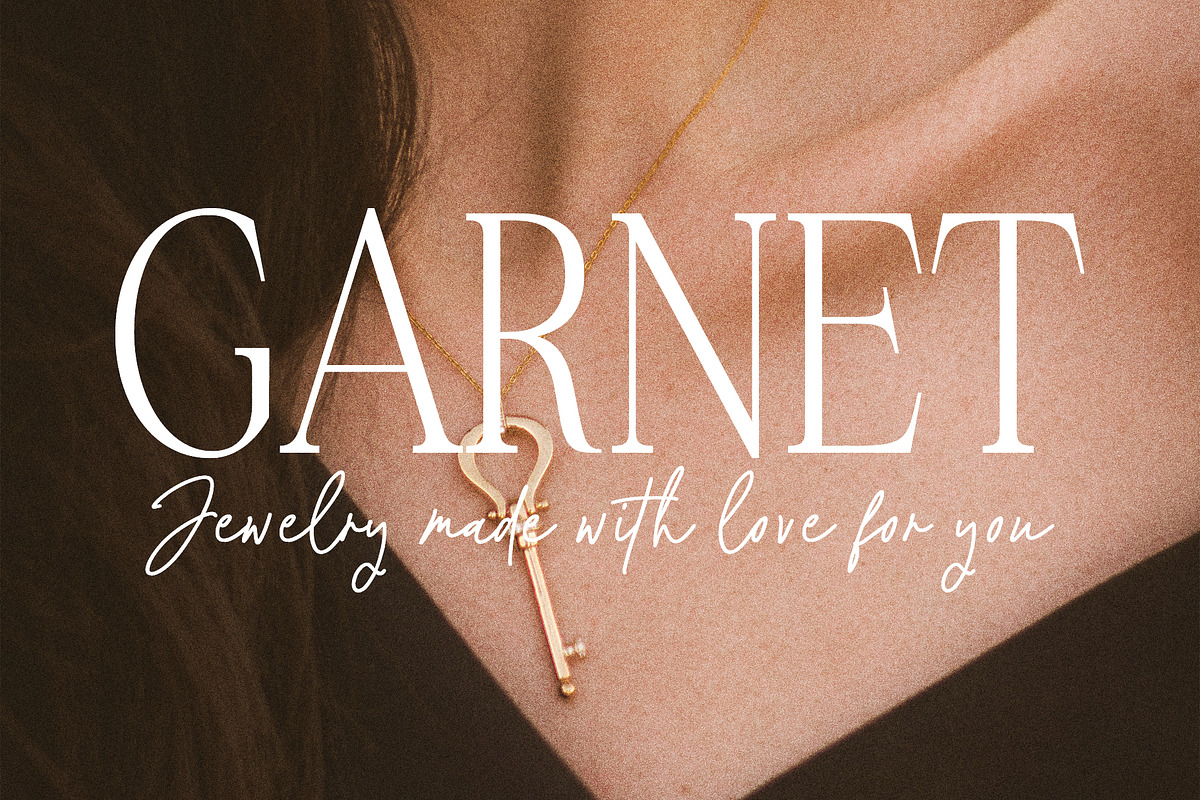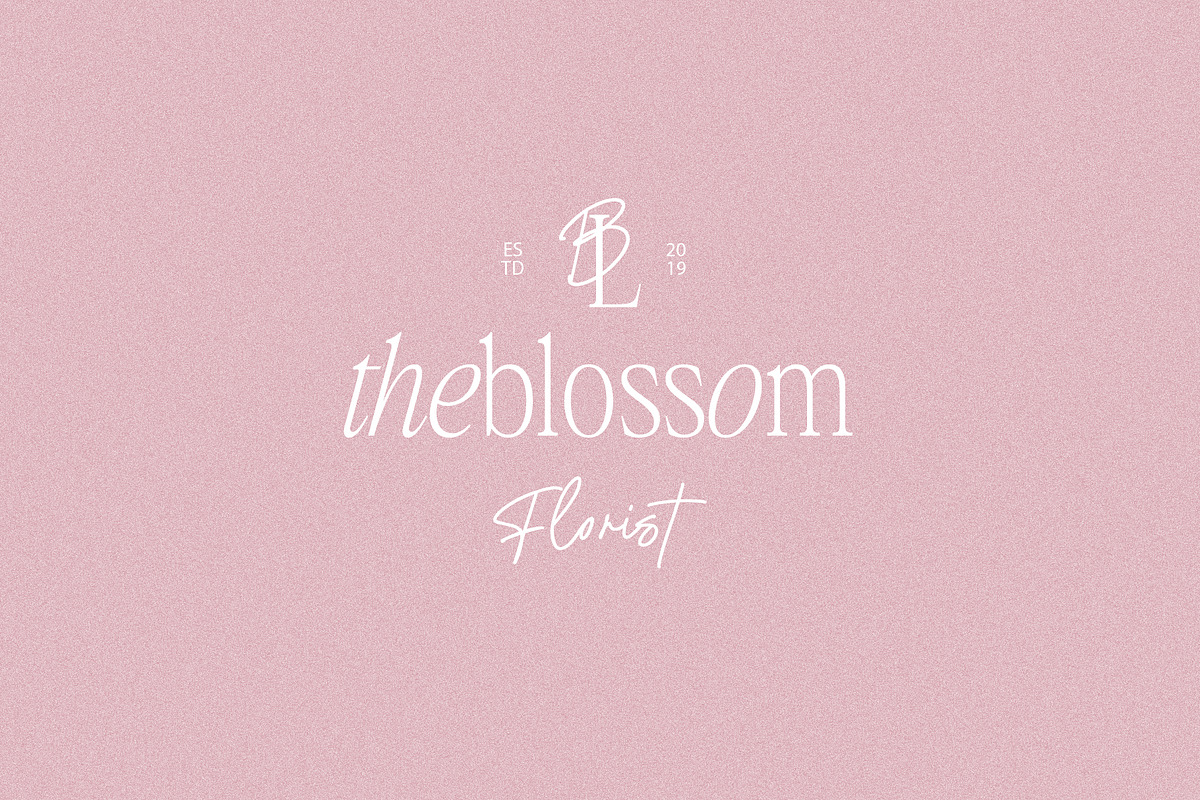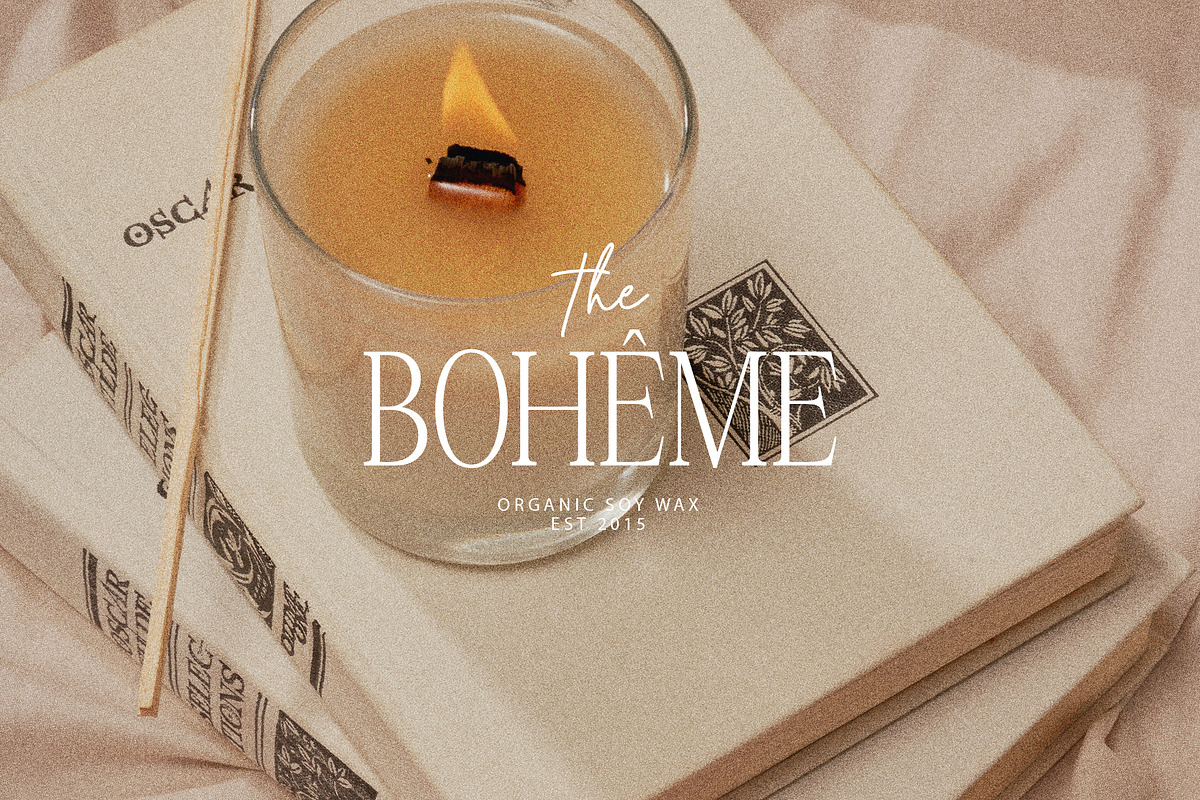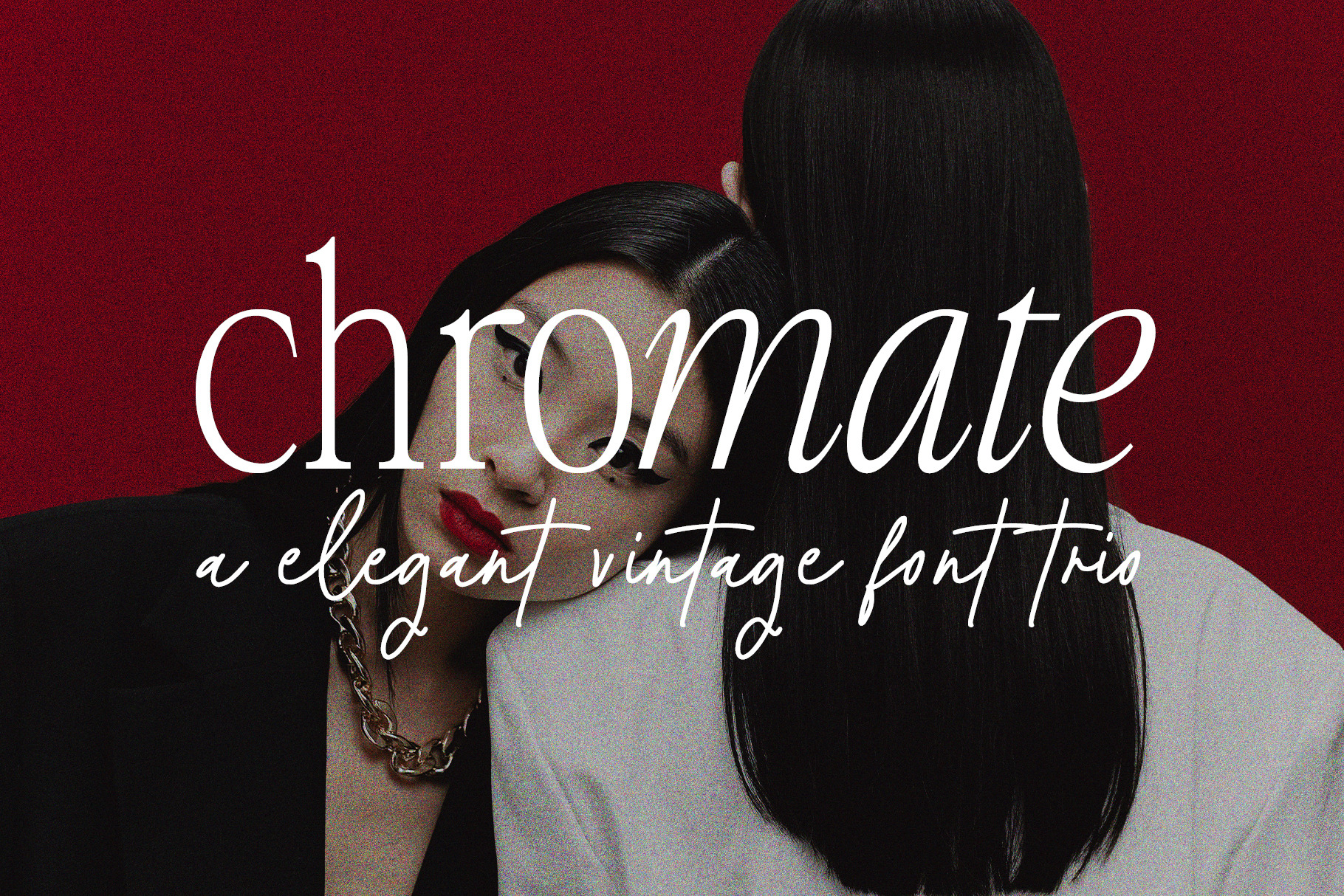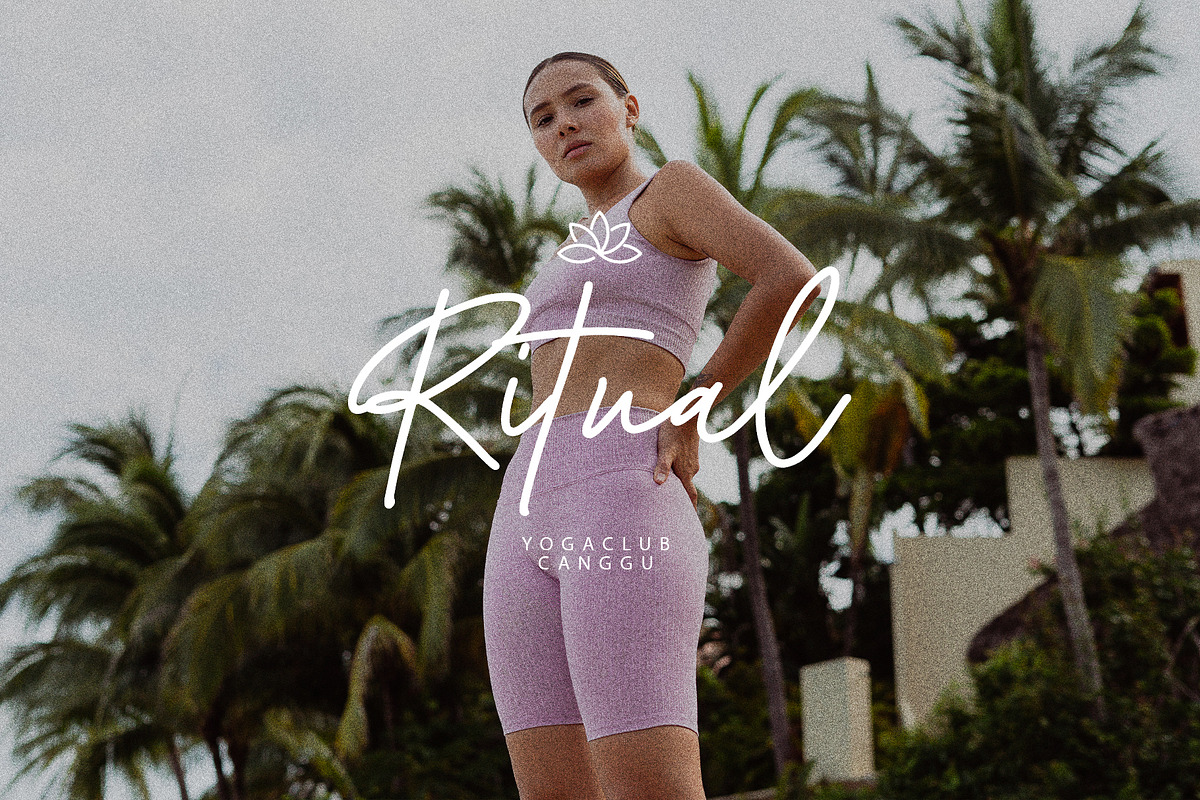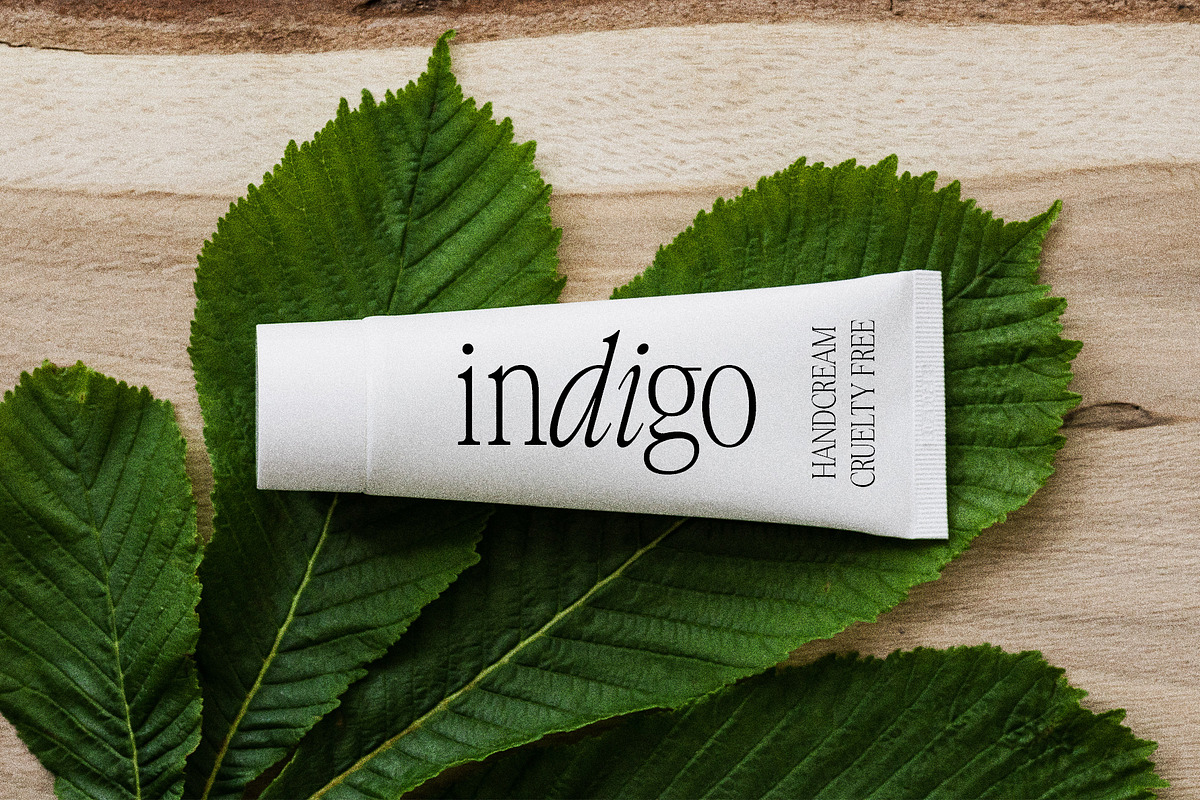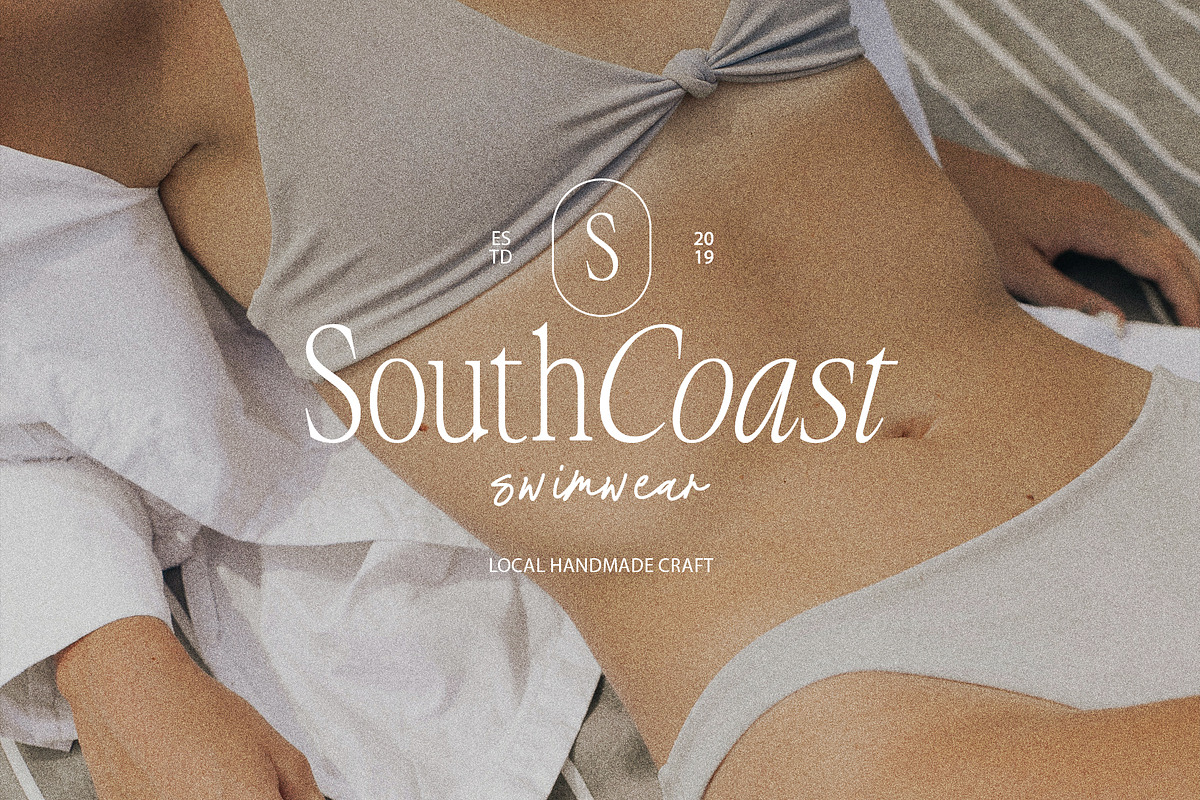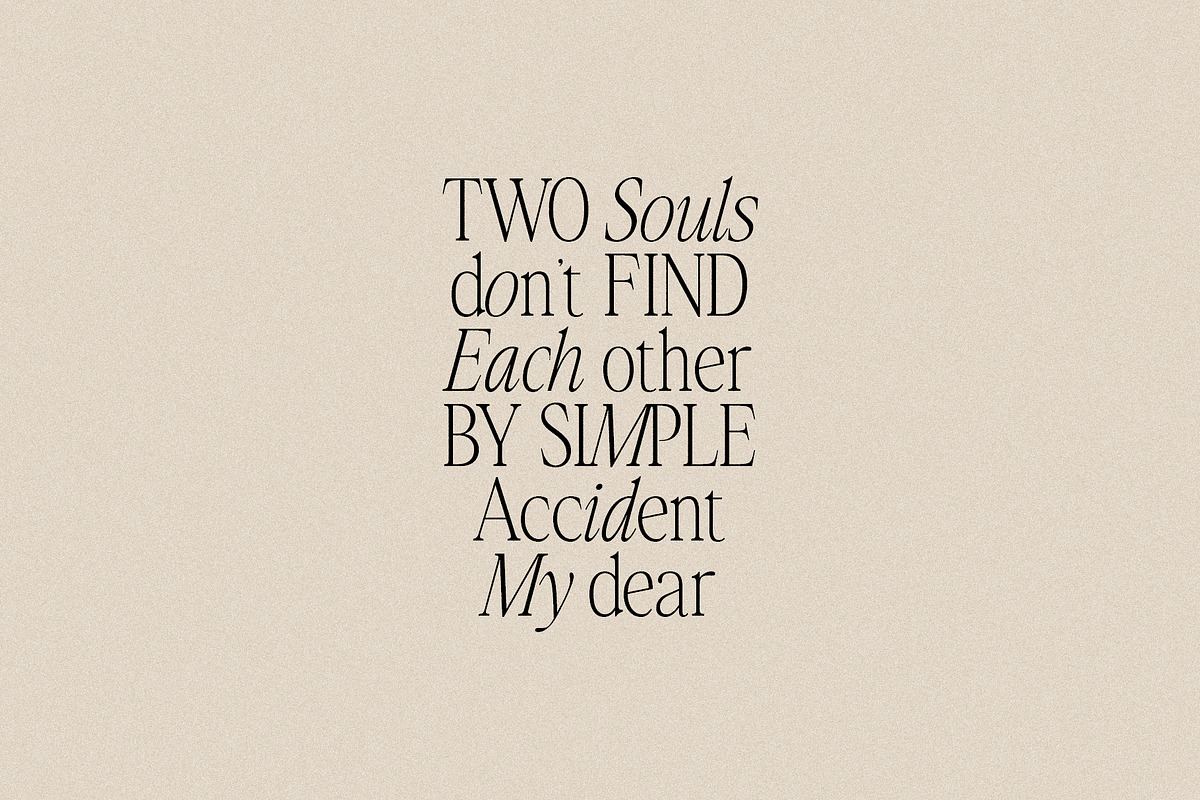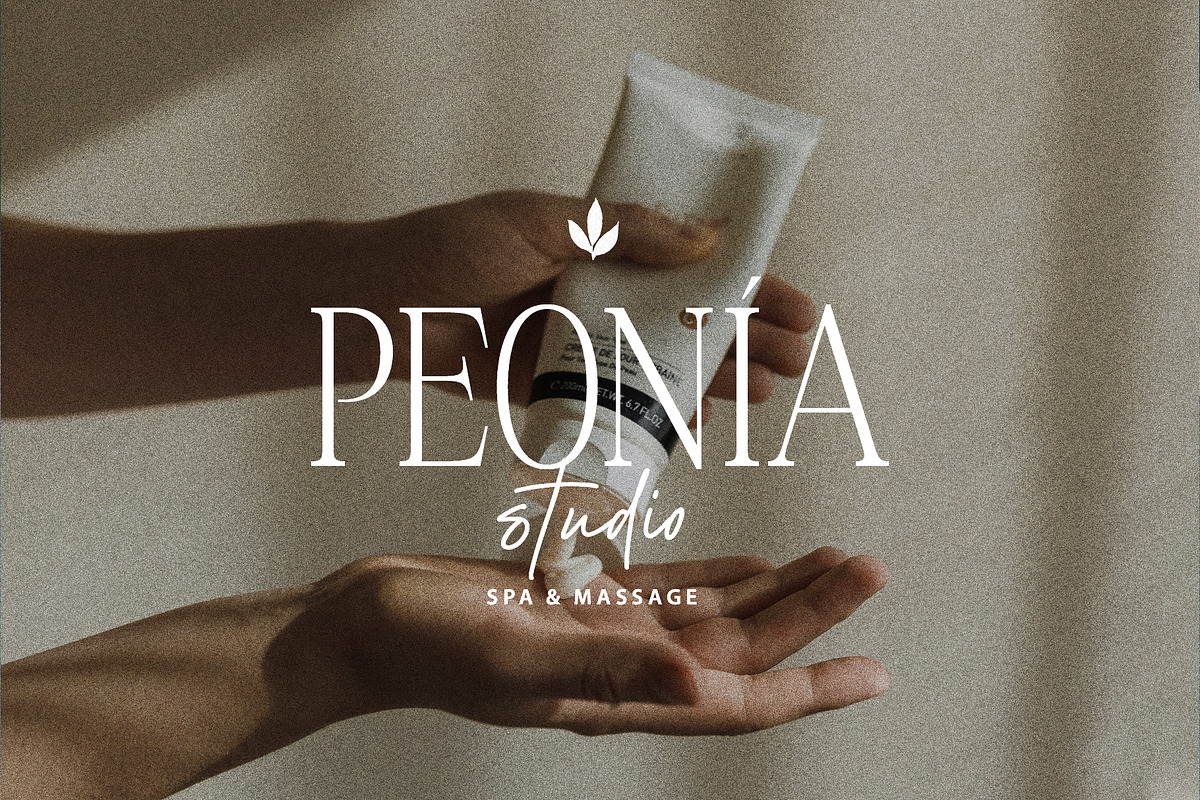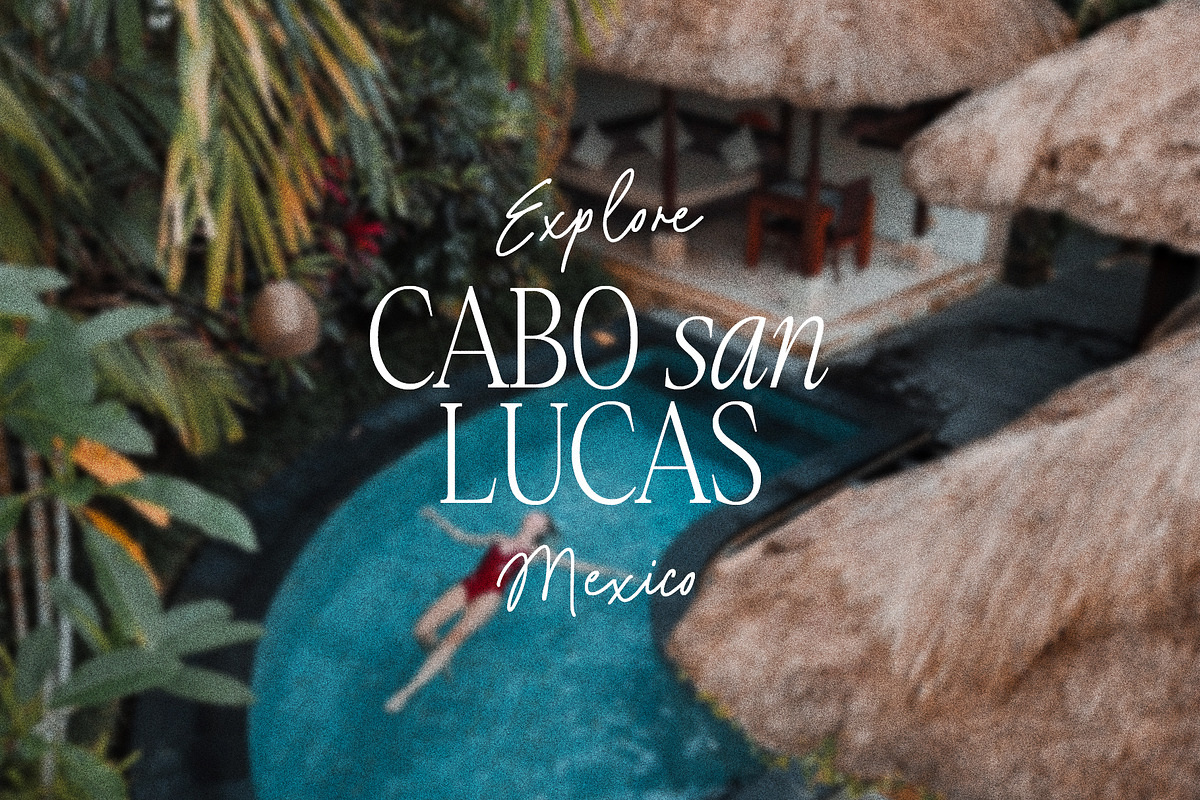
Chromate / Modern Serif Font Duo
Chromate - a charming family with 3 fonts in retro style of the 80s and 90s! The dense structure will give an incredible retro vibe to your project.
There are 3 fonts at your disposal, Regular, Italic and Script. This set covers all your needs and allows you to keep the project in a single style. You no longer need to look for which font is suitable, everything is already here
Chromate Font Features:
- Full Set of standard alphabet and punctuation
- PUA Encoded - no special software needed to access extra characters
- Language support: All European languages
- Multilingual Characters AÁĂÂÄÀĀĄÅÃÆBCĆČÇĊDÐĎĐEÉĚÊËĖÈĒĘẼFGĞĢĠḠHĦIIJÍÎÏİÌĪĮĨJKĶLĹĽĻŁMNŃŇŅÑ OÓÔÖÒŐŌØÕŒPÞQRŔŘŖSŚŠŞȘẞTŤŢȚUÚÛÜÙŰŪŲŮŨVWẂŴẄẀXYÝŶŸỲỸZŹŽŻ aáăâäàāąåãæbcćčçċdðďđeéěêëėèēęẽfgğģġḡhħiıíîïìijīįĩjȷkķlĺľļłmnńňņñoóôöòőōøõœpþ qrŕřŗsśšşșßtťţțuúûüùűūųůũvwẃŵẅẁxyýŷÿỳỹzźžż